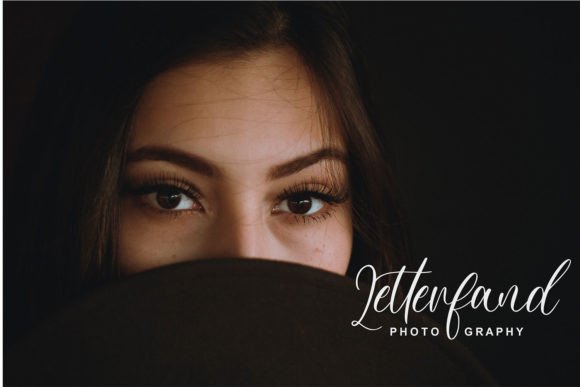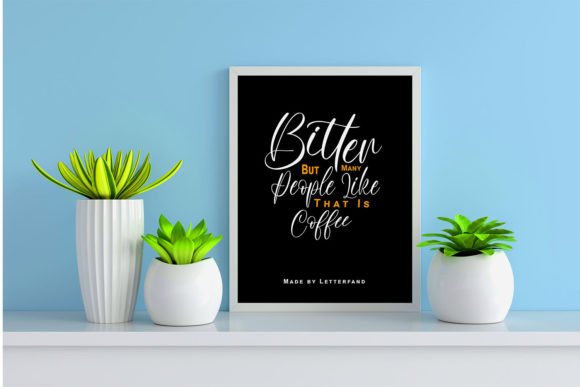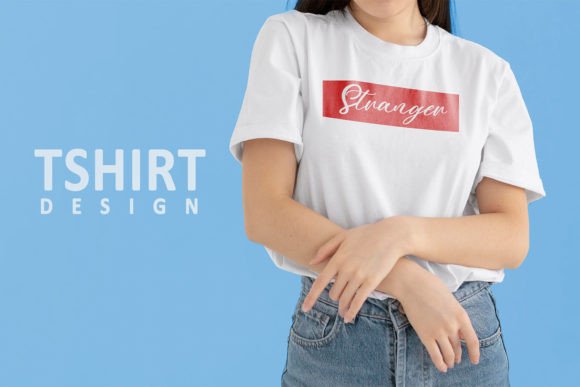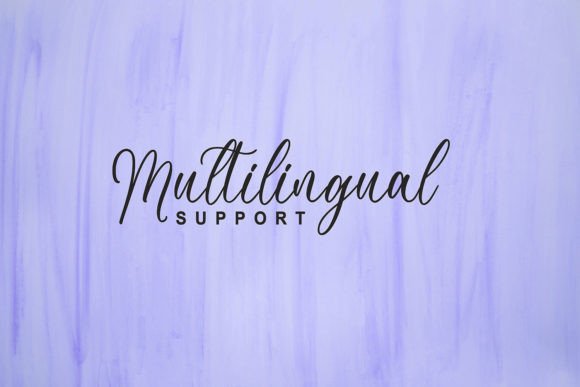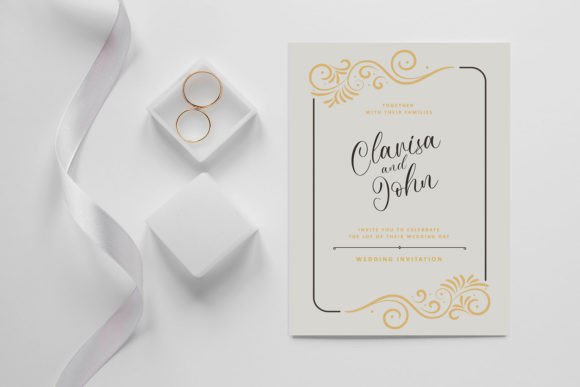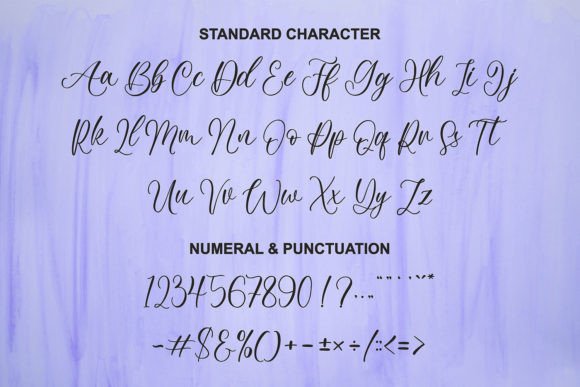
The Berllinger Font: A Modern Design Essential
Have you ever been in the middle of a design project, and suddenly, you’re stuck on finding the perfect font? I recall a recent experience where I was working on a luxury brand’s logo, and I just couldn’t find a font that screamed elegance and sophistication. That’s when I stumbled upon the Berllinger font, a thin handwritten font that has taken the design world by storm.
A Personal Encounter with Berllinger
As I began to experiment with Berllinger, I was immediately drawn to its modern style and luxurious appearance. The font’s thin lines and elegant curves made it perfect for my luxury brand project. I was able to create a stunning logo that exceeded my client’s expectations. From that moment on, I was hooked on Berllinger, and I knew I had to share my discovery with fellow designers and creative hobbyists.
An Honest Review of Berllinger
What I Love About Berllinger ✨
- 💫 Its modern and luxurious appearance makes it perfect for high-end designs
- ✅ The font is incredibly versatile, suitable for a wide range of design projects
- 📝 Berllinger’s thin lines and elegant curves make it perfect for creating beautiful typography
- 👍 The font is easy to read, even in smaller sizes
While Berllinger is an amazing font, there are a few things to keep in mind:
- 🤔 The font may not be suitable for body text, as it’s quite thin and may be difficult to read in large blocks of text
- ⚠️ Some characters may not be suitable for use in all caps, as they may lose their elegance
A Practical Guide to Using Berllinger
- Experiment with the font’s OpenType features, such as glyphs and stylistic alternates, to add more personality to your design
- Take advantage of Berllinger’s OpenType features, such as ligatures and stylistic alternates, to add more depth to your design
Even in Microsoft Word, Berllinger can be used to add a touch of elegance to your documents:
The Story Behind Berllinger
Berllinger was designed with the modern designer in mind. Its creator wanted to craft a font that was both elegant and versatile, suitable for a wide range of design projects. The font’s thin lines and elegant curves make it perfect for creating beautiful typography that stands out.
Q: What is Berllinger font?
A: Berllinger is a thin handwritten font made in a modern style, perfect for designs that require a touch of luxury and elegance.
Q: Is Berllinger suitable for body text?
A: While Berllinger is an amazing font, it may not be suitable for body text, as it’s quite thin and may be difficult to read in large blocks of text.